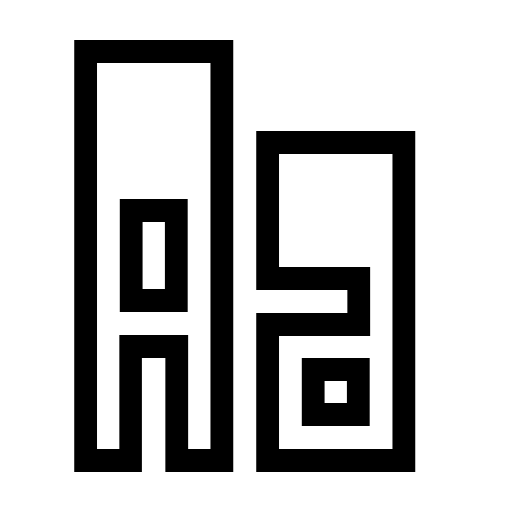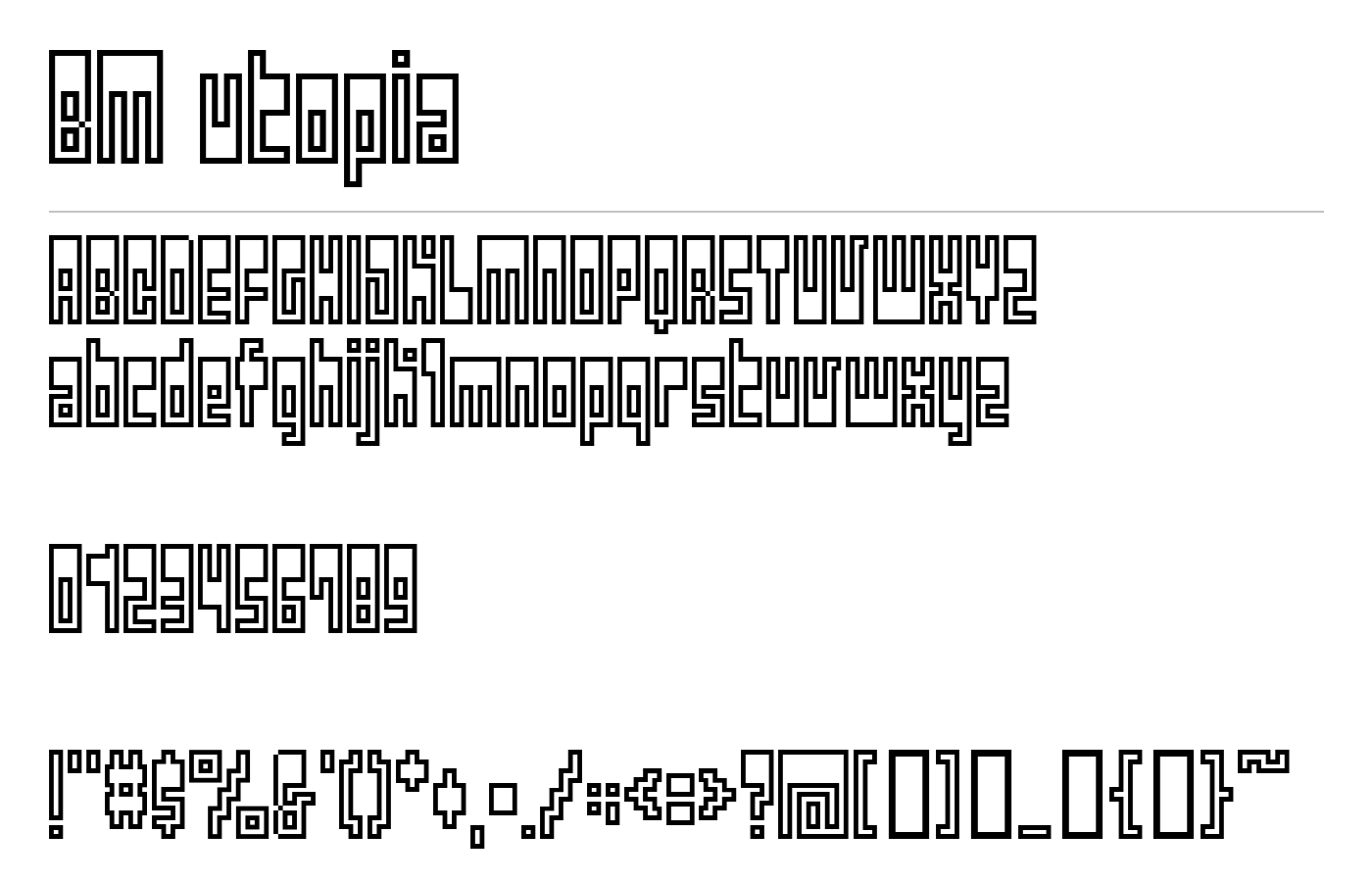
BM Utopia is a distinct geometric sans serif font with a bold and condensed frame-like structure, characterized by uniform stroke widths and sharp, square corners. Its unique, almost maze-like letterforms give it a modern, tech-inspired feel that stands out well in headlines, logos, and creative branding where a strong, futuristic look is desired. This font works best for designs seeking an eye-catching, digital or industrial vibe rather than traditional readability in body text.
BM utopia Font
About BM utopia Font